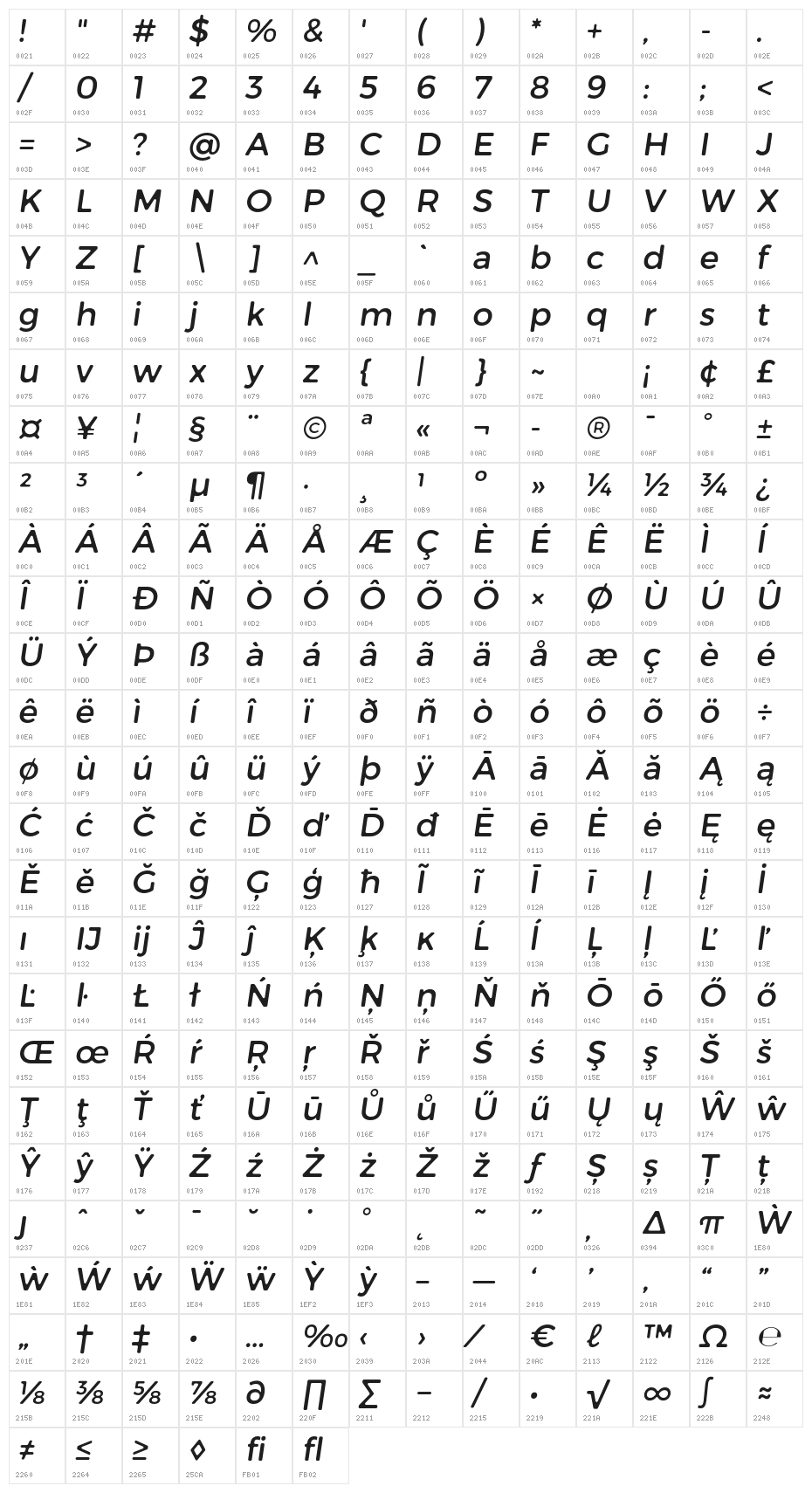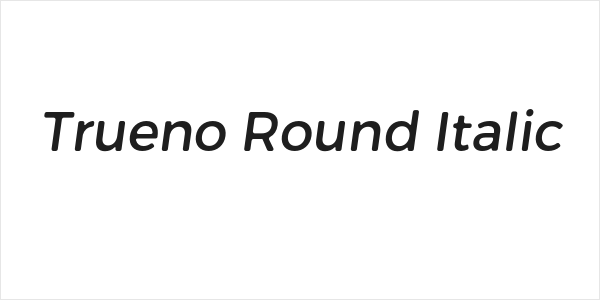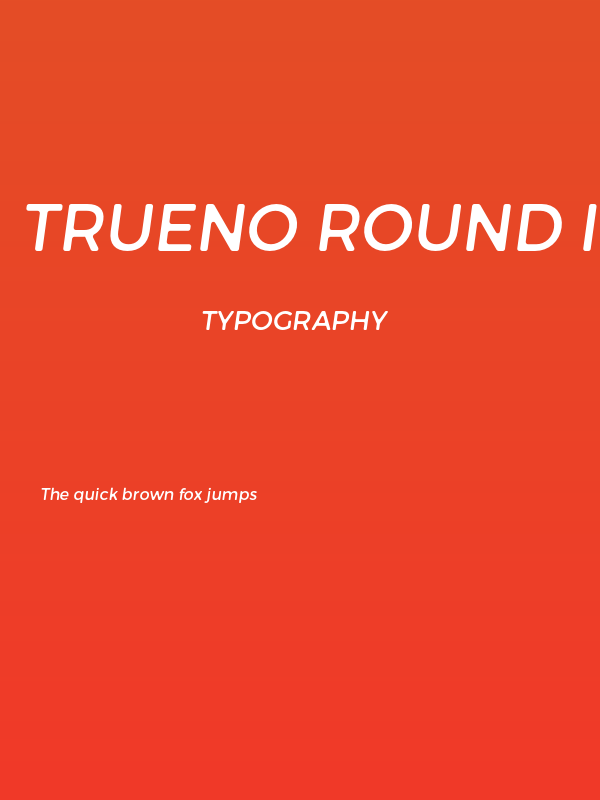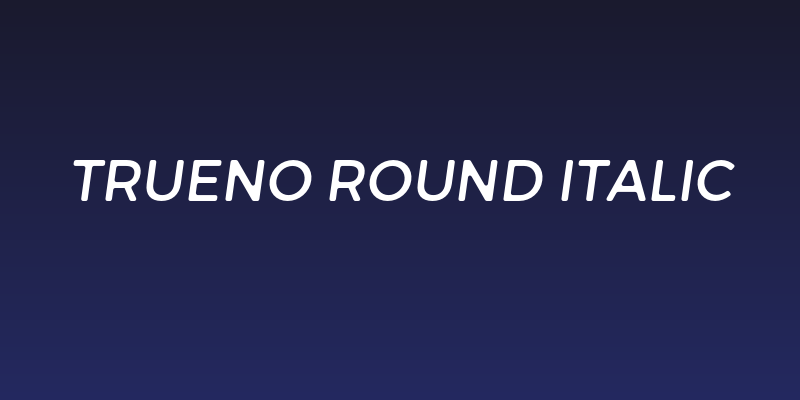
Trueno Round Italic Font
Trueno Round Italic Description
This font features a smooth, rounded design with a modern and approachable feel. The italic style adds a dynamic and fluid touch, making it suitable for conveying movement or emphasis. The characters are evenly spaced, providing a clean and organized appearance. The rounded edges soften the overall look, making it friendly and inviting. It maintains a consistent stroke width, contributing to its legibility and versatility across various applications. The numerals and special characters are designed to match the overall style, ensuring cohesion in any text composition.
| Proposed Projects | Ideal for branding, advertising, and digital media projects where a modern and approachable tone is desired. |